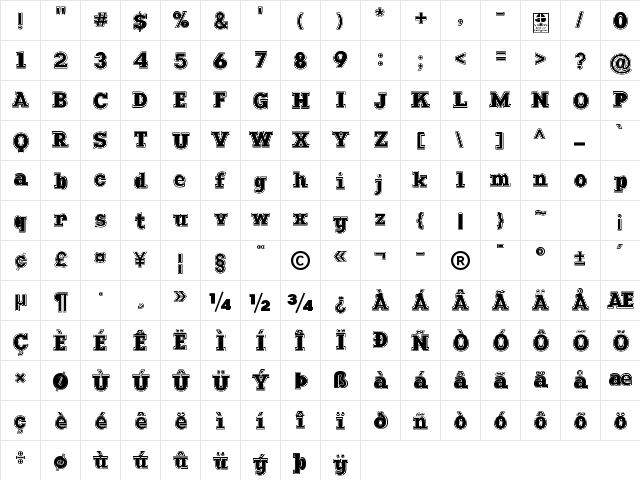
Manti Slab College Demo Regular
Design Context for Manti Slab College Demo Typeface
Manti Slab College Demo brings high-energy athletic personality to the page — its confident, muscular forms are built for impact.
A natural choice for gym brands, fantasy sports, jersey lettering, and action-driven headlines.
Font Pairing: Use alongside a condensed or geometric sans for supporting copy — keep the pairing bold, functional, and free of ornament.
Pro Tip: Use Manti Slab College Demo in all-caps headlines where its athletic energy can fully express itself. Pair with a solid, simple sans for supporting text.